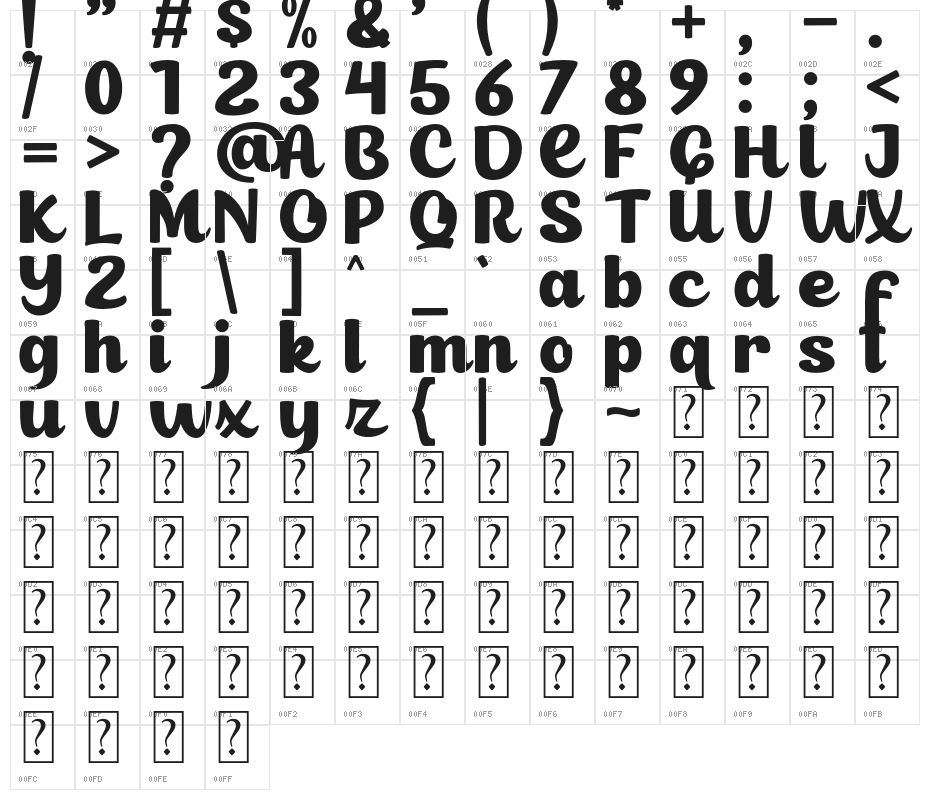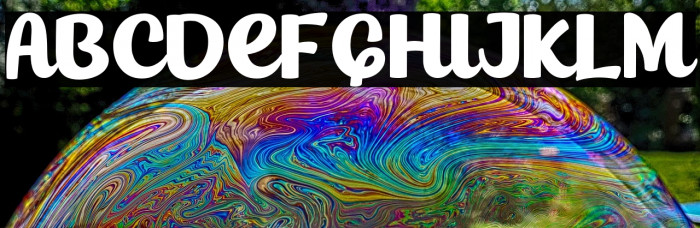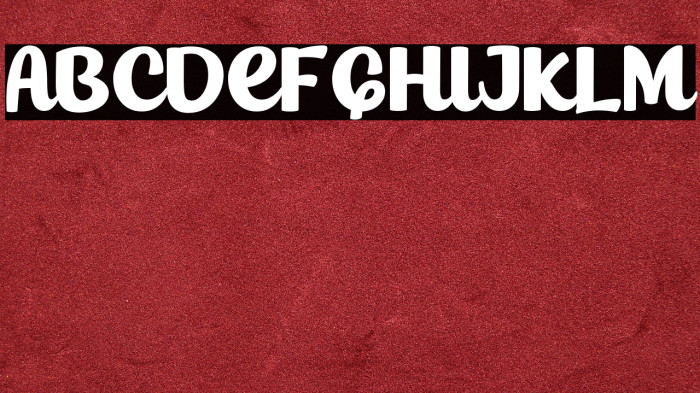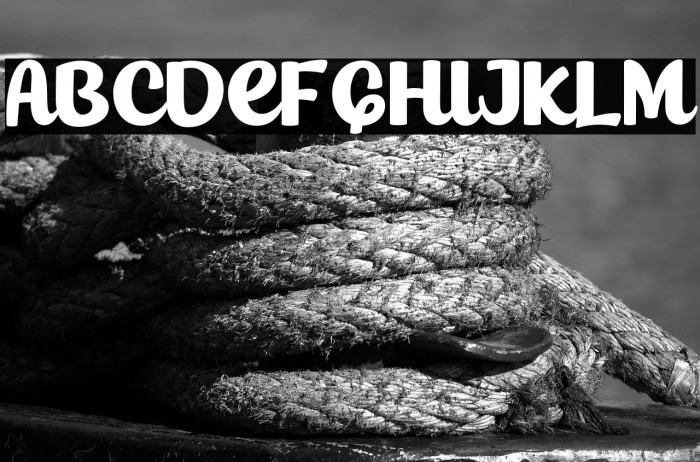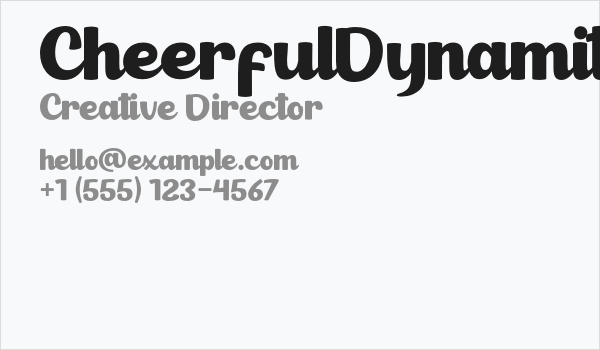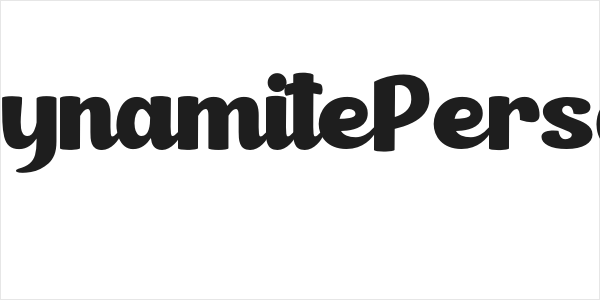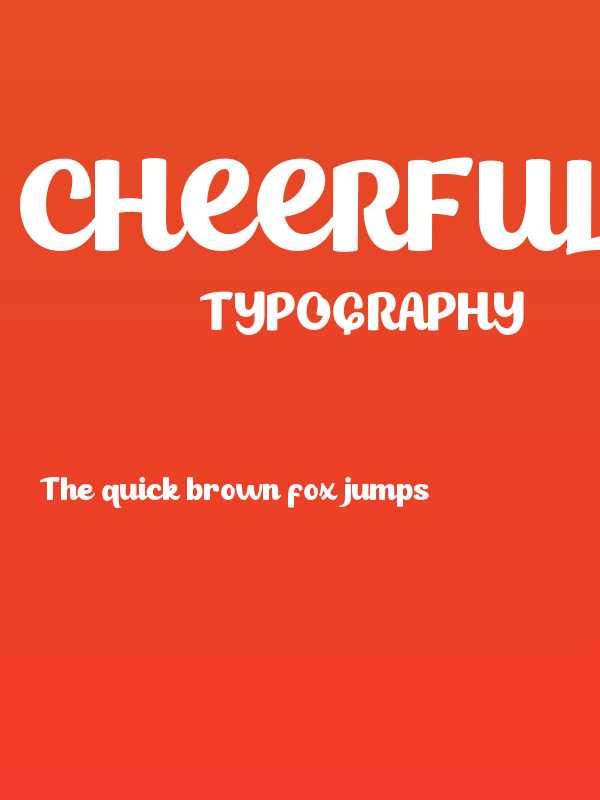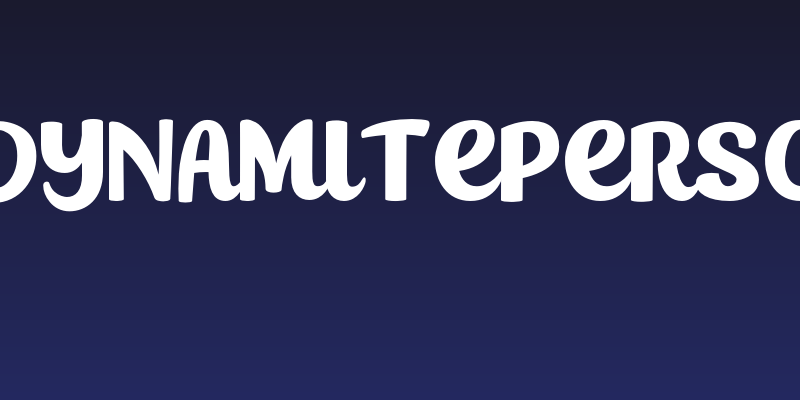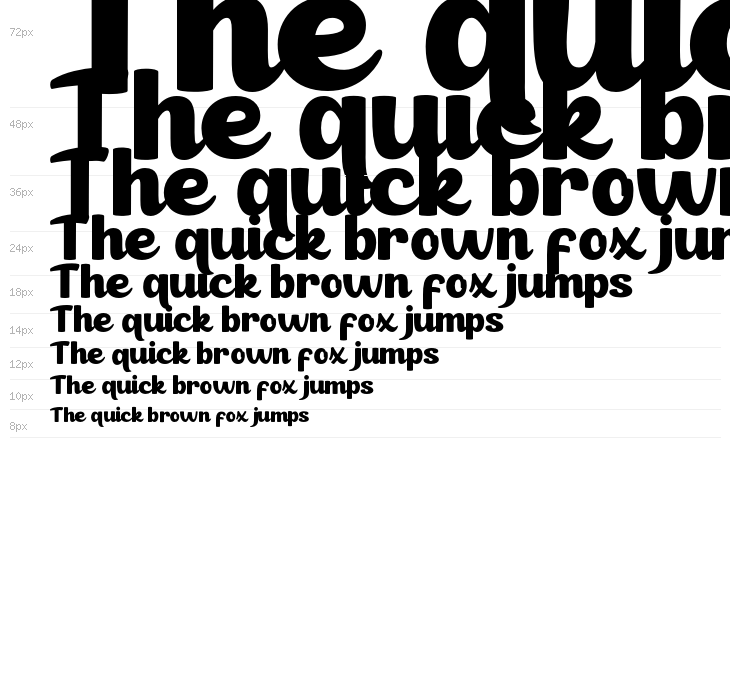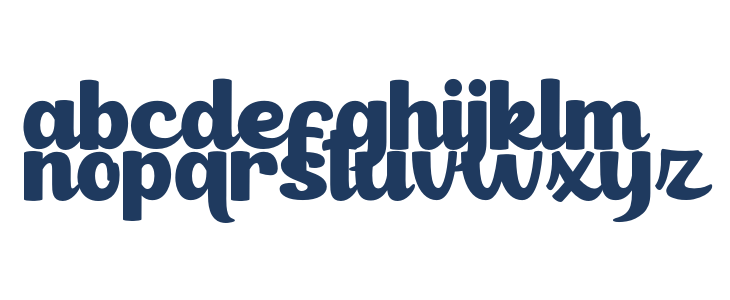
CheerfulDynamitePersonalUse-R Font
CheerfulDynamitePersonalUse-R Description
This font exudes a playful and energetic vibe with its bold, rounded characters and smooth curves. The uppercase letters are slightly taller than the lowercase, maintaining a consistent width that gives a balanced appearance. The lowercase letters feature a unique blend of traditional and modern styles, with some characters having distinctive loops and swirls. Numbers are bold and easy to read, while the special characters maintain the same playful aesthetic. The overall design is cohesive, making it suitable for projects that require a fun and lively touch.
| Overall Style | Playful, Energetic |
| Proposed Projects | Ideal for children's books, playful branding, party invitations, and creative posters. |